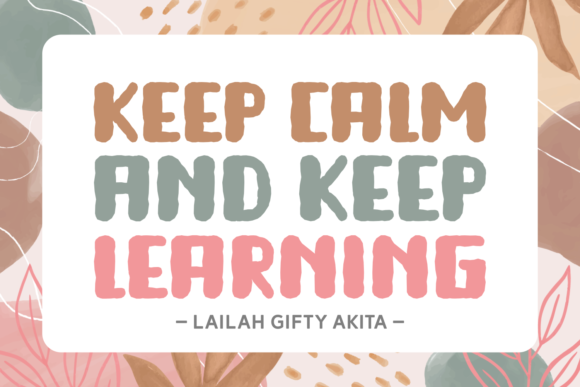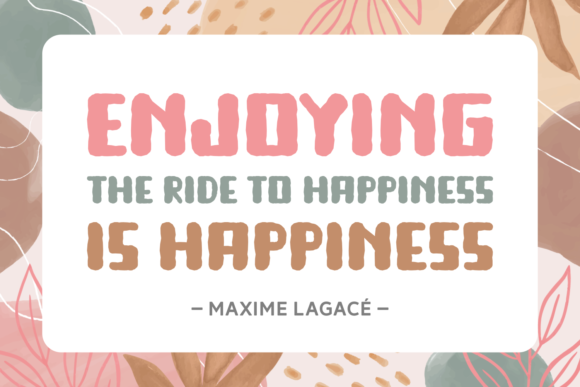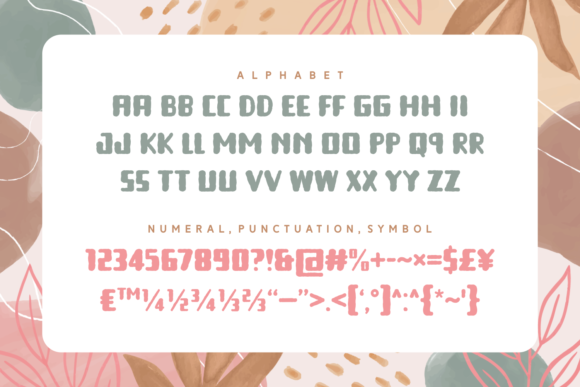
The Perfect Font to Brighten Up Your Designs
Have you ever been working on a project and suddenly, a burst of inspiration hits you? That’s exactly what happened to us when we discovered the Great News Font. Its chubby and bold display style has a way of making any design idea stand out, and we just can’t get enough of it!
As a display font, Great News Font is designed to grab attention and make a statement. Its playful, yet elegant feel makes it perfect for anything from social media graphics to advertising campaigns. Whether you’re a seasoned designer or just starting out, this lovely typeface is sure to bring a smile to your face and a touch of creativity to your work.
Great News Font Key Features
- Font Family: Great News Font is a modern sans-serif font family designed for news and media applications.
- Font Sizes: Supports font sizes from 8 to 72 points, making it suitable for a wide range of applications, from small headlines to large body text.
- Resolution: Designed for high-resolution displays, making it ideal for use in digital media, such as websites, e-books, and mobile apps.
- Unique Characteristics: Features a clean and modern design with a subtle x-height and a distinctive italic style, making it perfect for news articles, blogs, and other written content.
- Language Support: Supports a wide range of languages, including Latin, Cyrillic, and Greek scripts, making it a versatile choice for global applications.
Great News Font Review
As a designer, I’ve had the chance to work with a lot of fonts, and I have to say that the Great News Font is a unique one. There are definitely some things that work well.
- ✨ The font has a fun, playful vibe that’s perfect for projects that need a bit of whimsy. It’s great for social media, advertisements, or any other project where you want to grab the user’s attention.
- ✨ The font is highly customizable, which is a major plus. I was able to easily adjust the size, color, and spacing to fit my design needs.
- ✨ The font is also very legible, even at smaller sizes. This is a big plus for projects where text is going to be read on smaller screens or at a distance.
However, there are also some limitations to the font.
- ⚠️ The font can be a bit too playful for some projects. If you’re looking for a more professional or serious tone, you might find that this font doesn’t quite fit the bill.
- ⚠️ The font also has a limited character set, which can make it difficult to use for longer blocks of text. This might not be a problem for shorter projects, but for longer ones, you might find yourself struggling to find the characters you need.
Overall, I would say that the Great News Font is a solid choice for projects that need a bit of personality. Just be aware of its limitations, and make sure it’s the right fit for your project before committing to it.
Getting the Most Out of Great News Font
To get the most out of the Great News Font, use it in bold headings to draw attention and create a sense of urgency. It’s also effective in creating a playful and modern look for your designs.
The Great News Font is ideal for:
– Headlines and titles
– Blog posts and articles
– Newsletters and email marketing
– Brochures and flyers